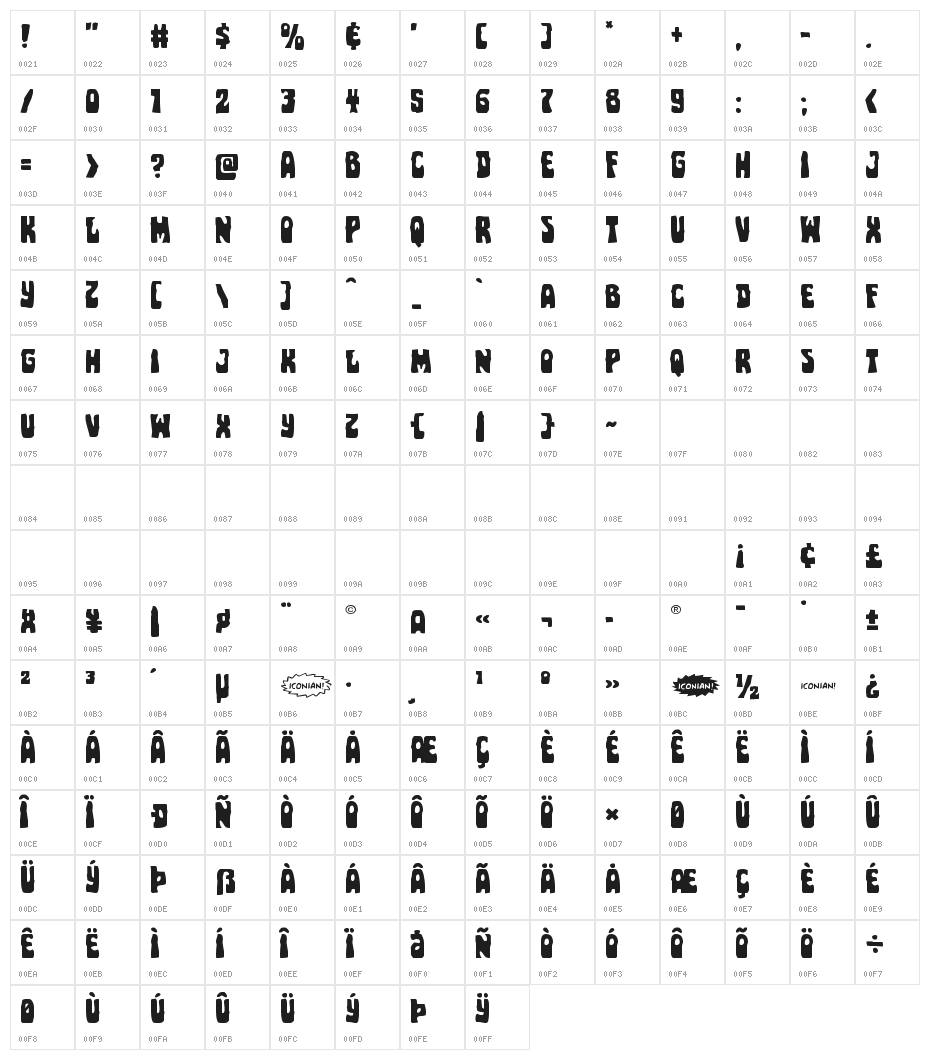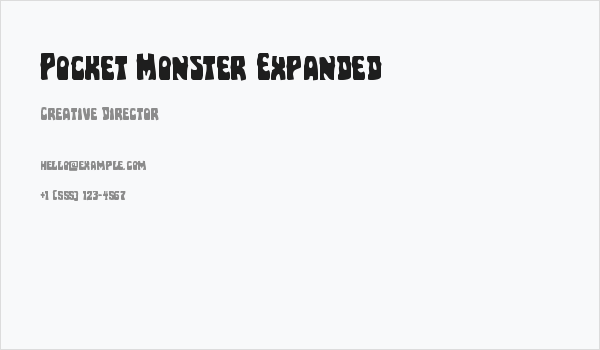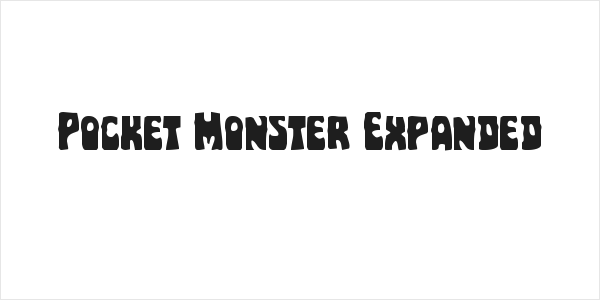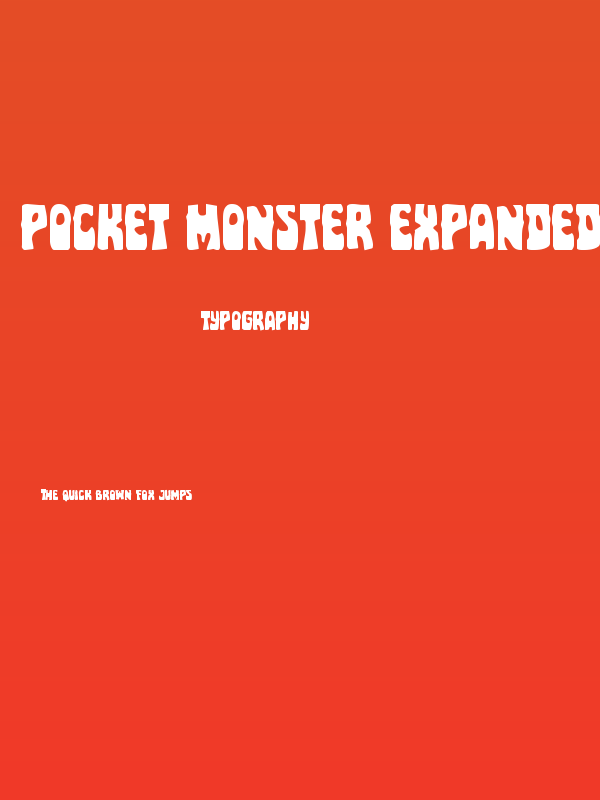
Pocket Monster Expanded Font
Pocket Monster Expanded Description
This font features a bold and playful design with a chunky, expanded style. The characters are heavily stylized with a cartoonish flair, making them stand out with their thick, blocky appearance. The letters have a consistent weight throughout, with minimal contrast in stroke thickness, contributing to a uniform and cohesive look. The overall style is reminiscent of retro or vintage comic book lettering, adding a sense of fun and whimsy. The spacing between characters is tight, enhancing the compact and impactful nature of the text. This font is ideal for projects that require a strong visual presence and a touch of nostalgia.
| Proposed Projects | Perfect for children's book covers, comic strips, playful branding, and retro-themed posters. |